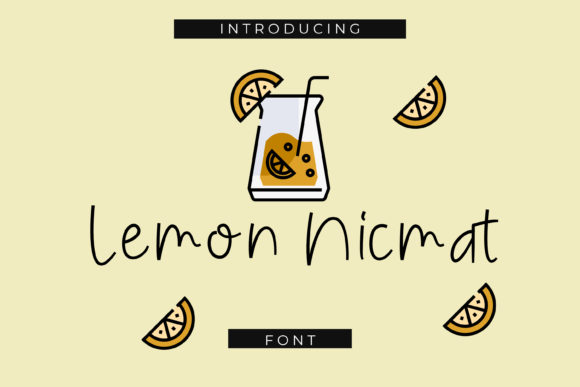
Embark on a typographic adventure with Lemon Nicmat, a display font that dances between the playful energy of a brush pen and the refined elegance of a pencil. This extraordinary creation by dangglemstudio captivates with its disarming charm and authenticity.
Unleash your creativity and breathe life into your DIY projects with Lemon Nicmat. Its playful nature makes it an ideal choice for adding a touch of whimsy to posters, flyers, and social media graphics. Its authenticity shines through in handwritten notes, invitations, and personal branding, giving your words a unique and heartfelt touch.
But don't let its playful side fool you. Lemon Nicmat also exudes a sense of sophistication that elevates any project it graces. Its carefully crafted strokes and subtle variations add a touch of artistry to logos, branding materials, and website designs. It effortlessly blends the playful and the professional, making it a versatile choice for a wide range of projects.
Step into a world of endless possibilities with Lemon Nicmat. Its user-friendly nature makes it accessible to designers of all levels, allowing you to effortlessly create captivating designs that leave a lasting impression. Let your imagination run wild and explore the boundless potential of this remarkable display font.